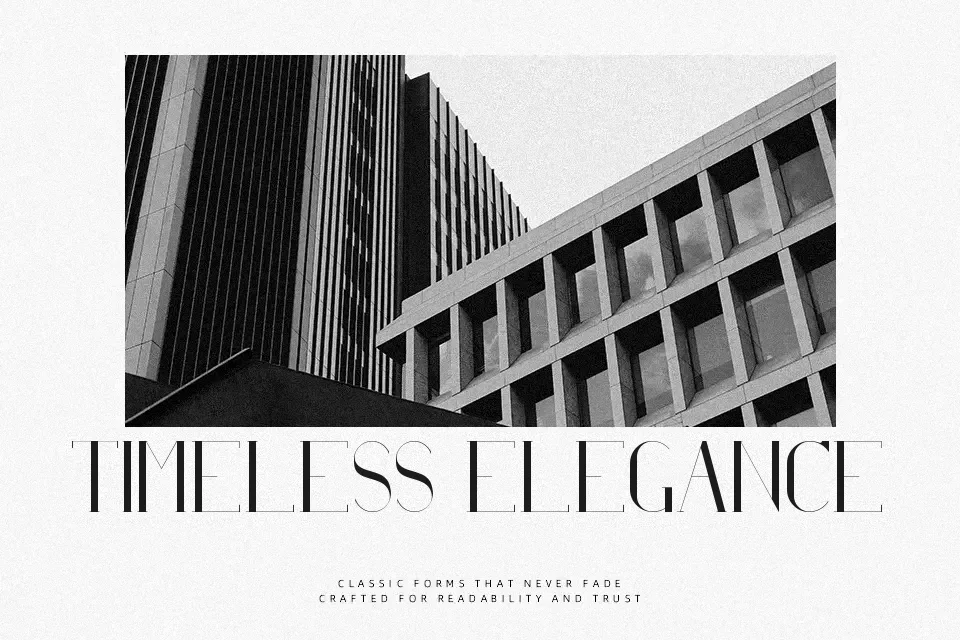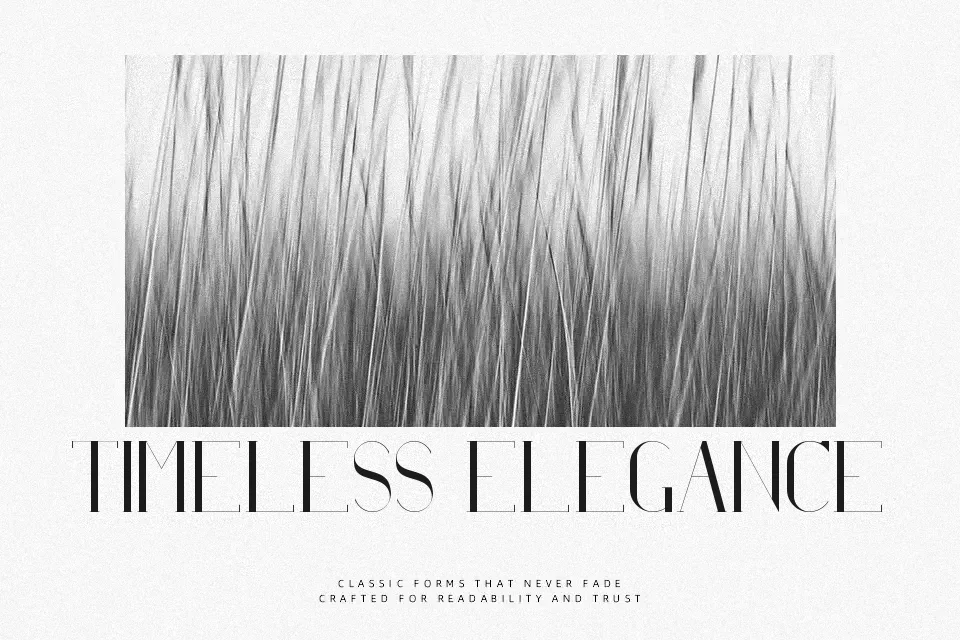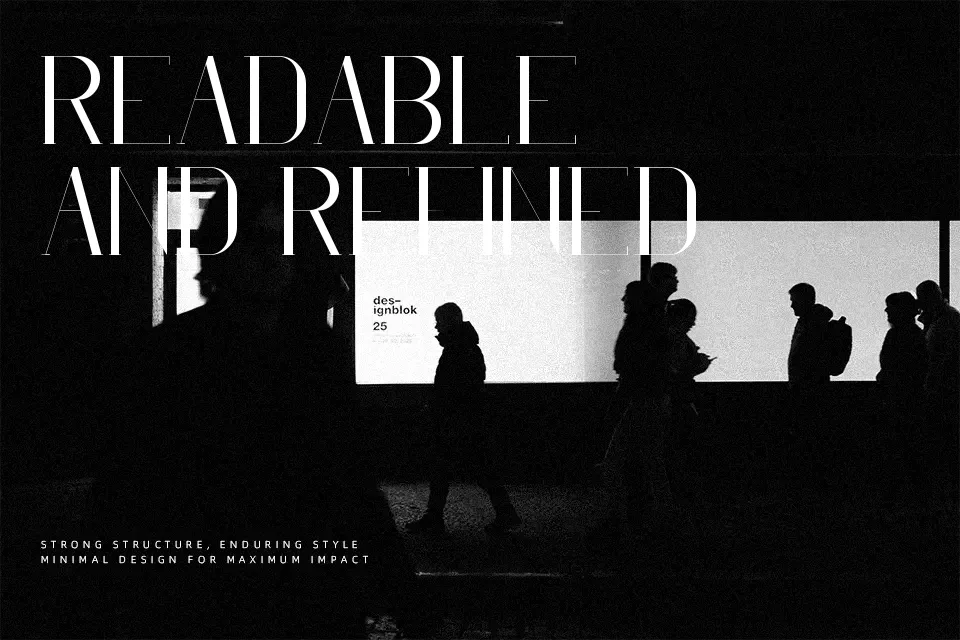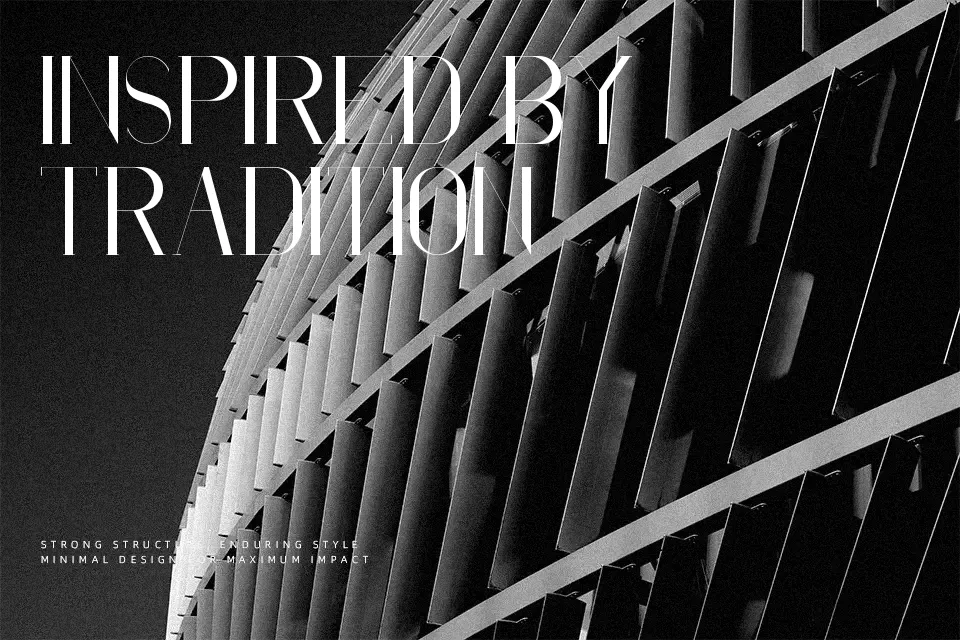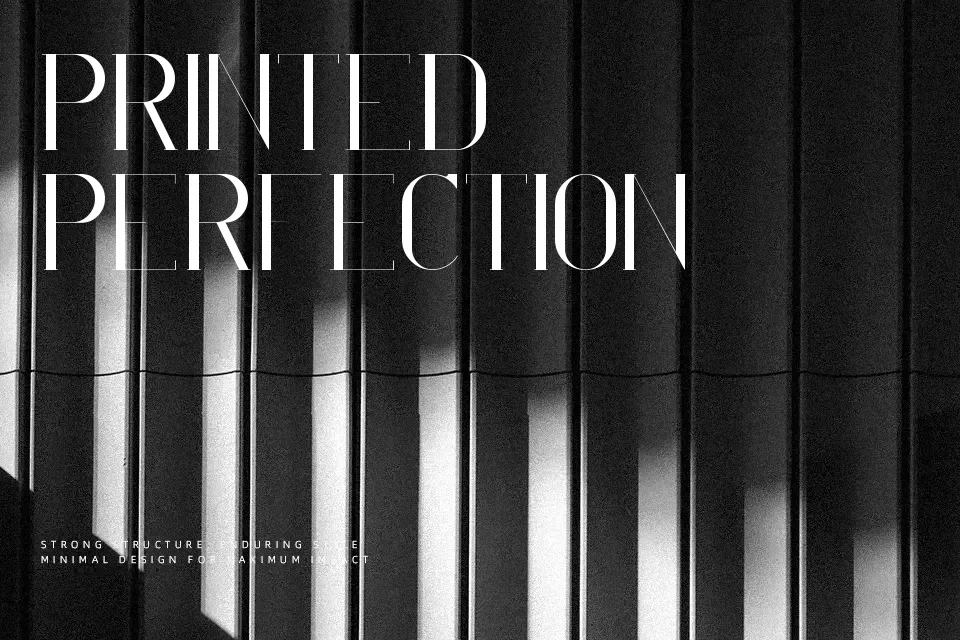
CC Afterglow Font
Designed by CC Creative Company
CC Afterglow leans on tall uppercase serif forms and a narrow vertical structure, giving headlines a refined, slightly dramatic rhythm rather than a dense or heavy presence. It reads best in short lines where the elongated proportions can breathe, such as magazine mastheads, literary cover titles, fashion posters, or section openers in editorial layouts. Because the character set appears limited, including missing lowercase and some punctuation, it is less convincing for body copy, interface labels, or any project that needs flexible text support. Its restrained detail also keeps it from feeling ornate, so it fits modern page compositions better than decorative invitation work.
Magazine mastheads;
book cover titles;
poster headlines;
editorial openers
Body paragraphs;
UI text; forms and menus;
punctuation-heavy layouts
Perfect for branding, editorial, and headline, with a classic and display style.